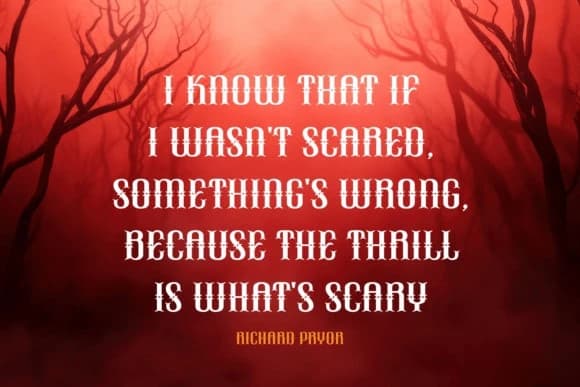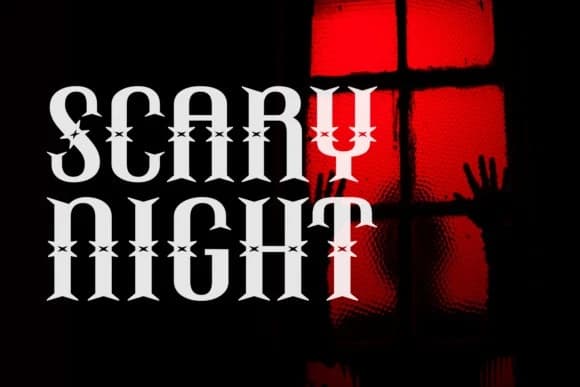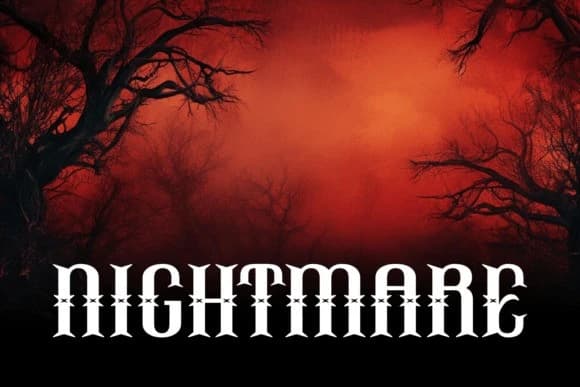
Whisper Scaries Font
Whisper Scaries Font is a unique blend of blackletter and vintage styling, creating a much-admired mix of ominous darkness and timeless appeal. As a clean, crafted font, it comfortably weaves its way into a myriad of uses